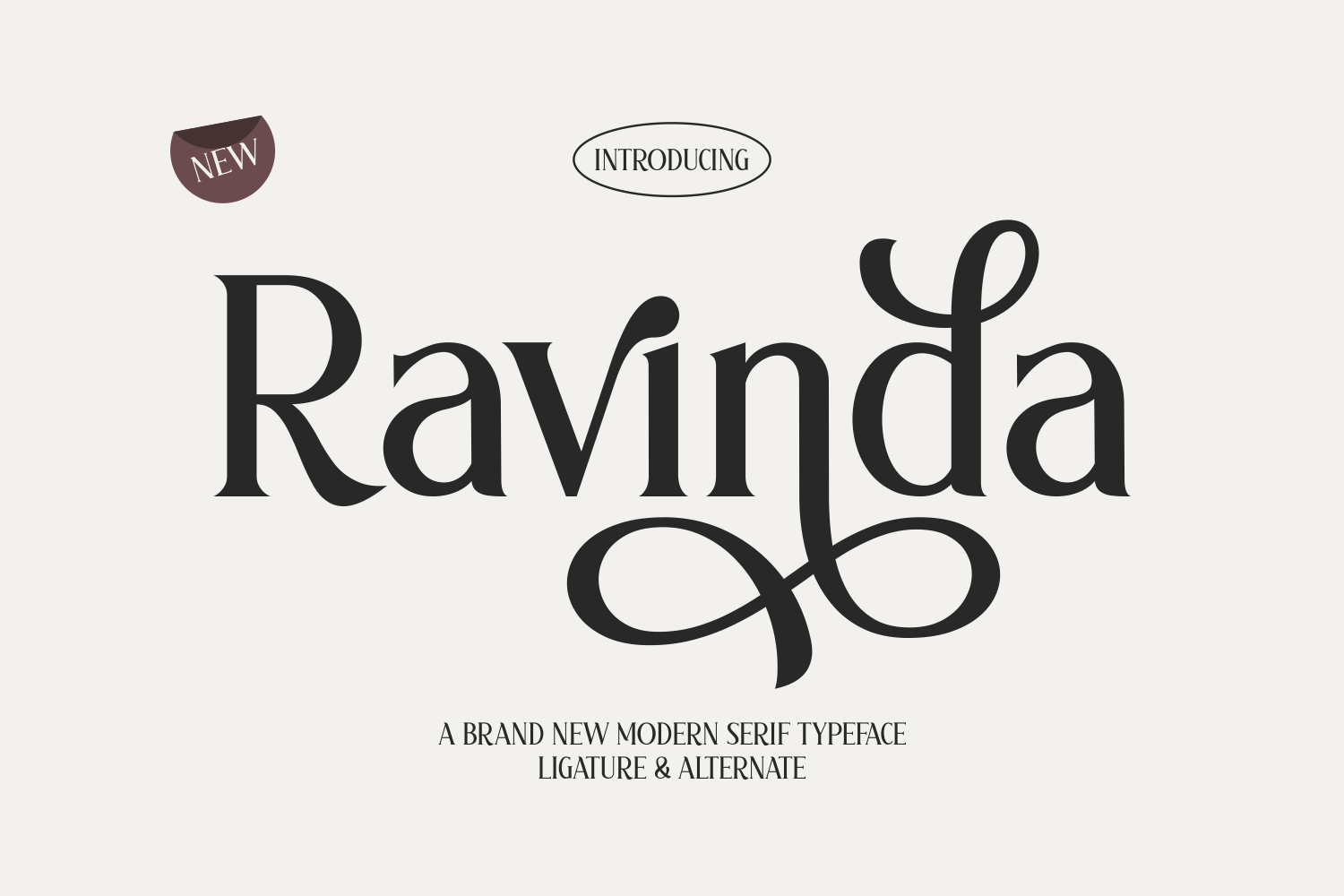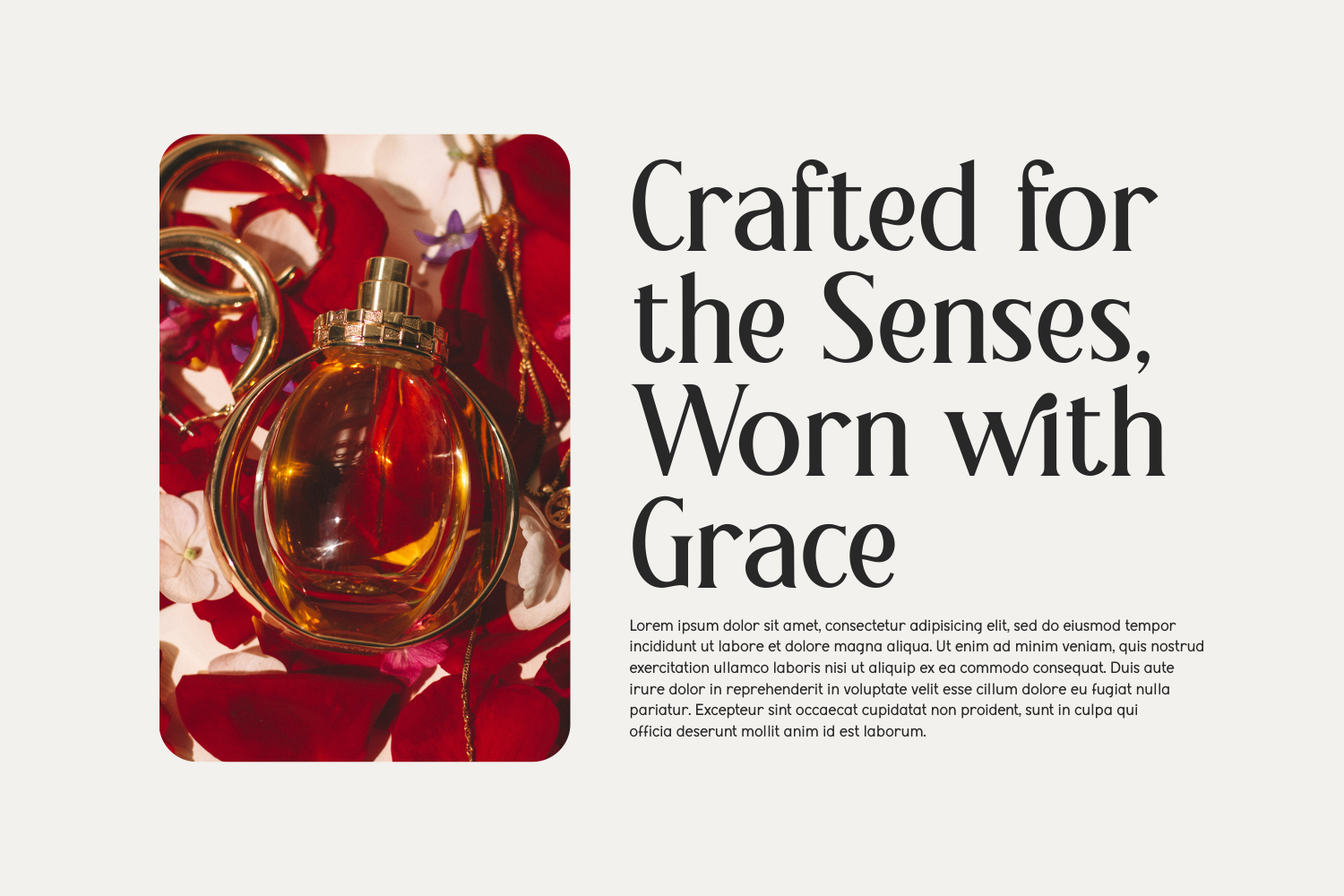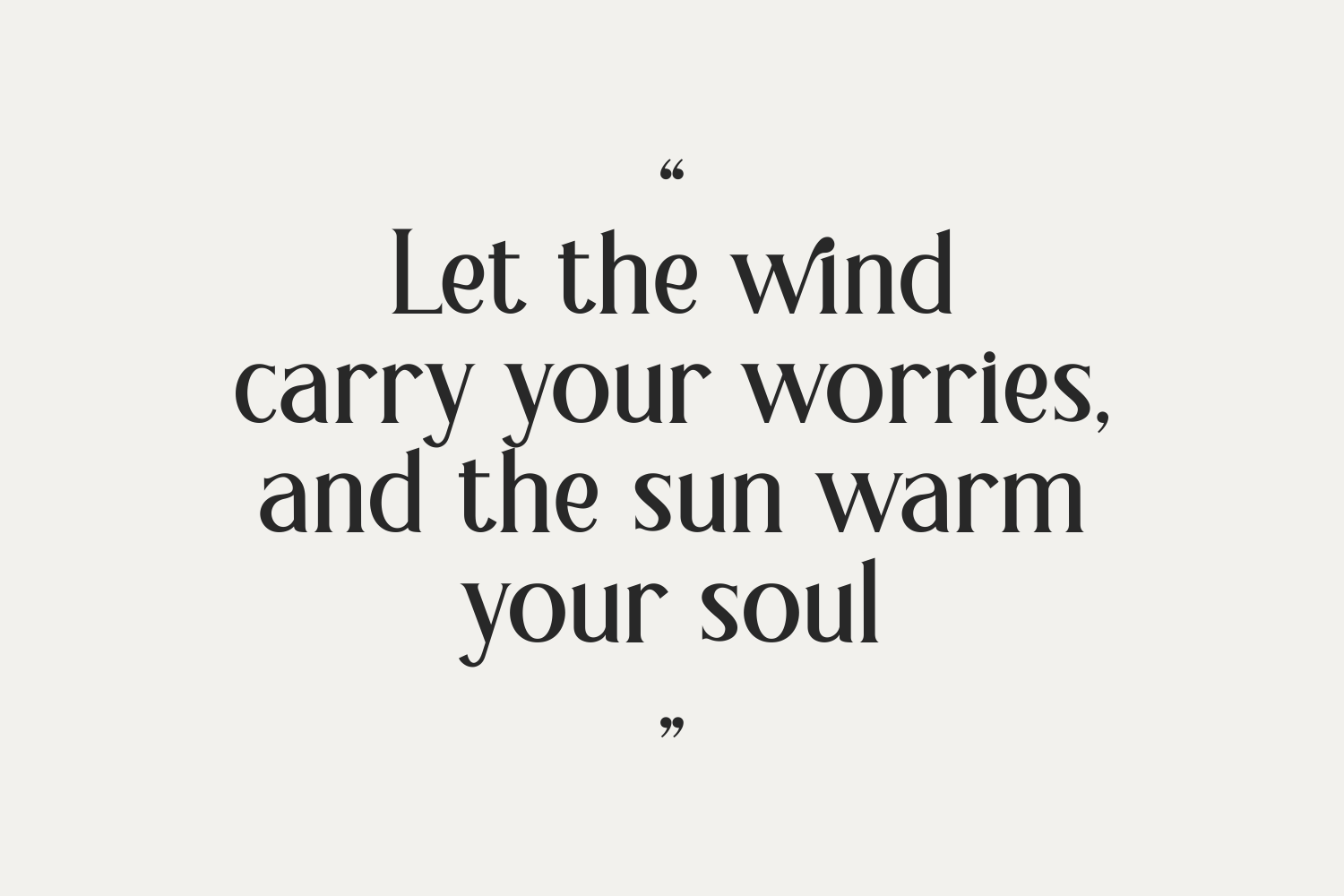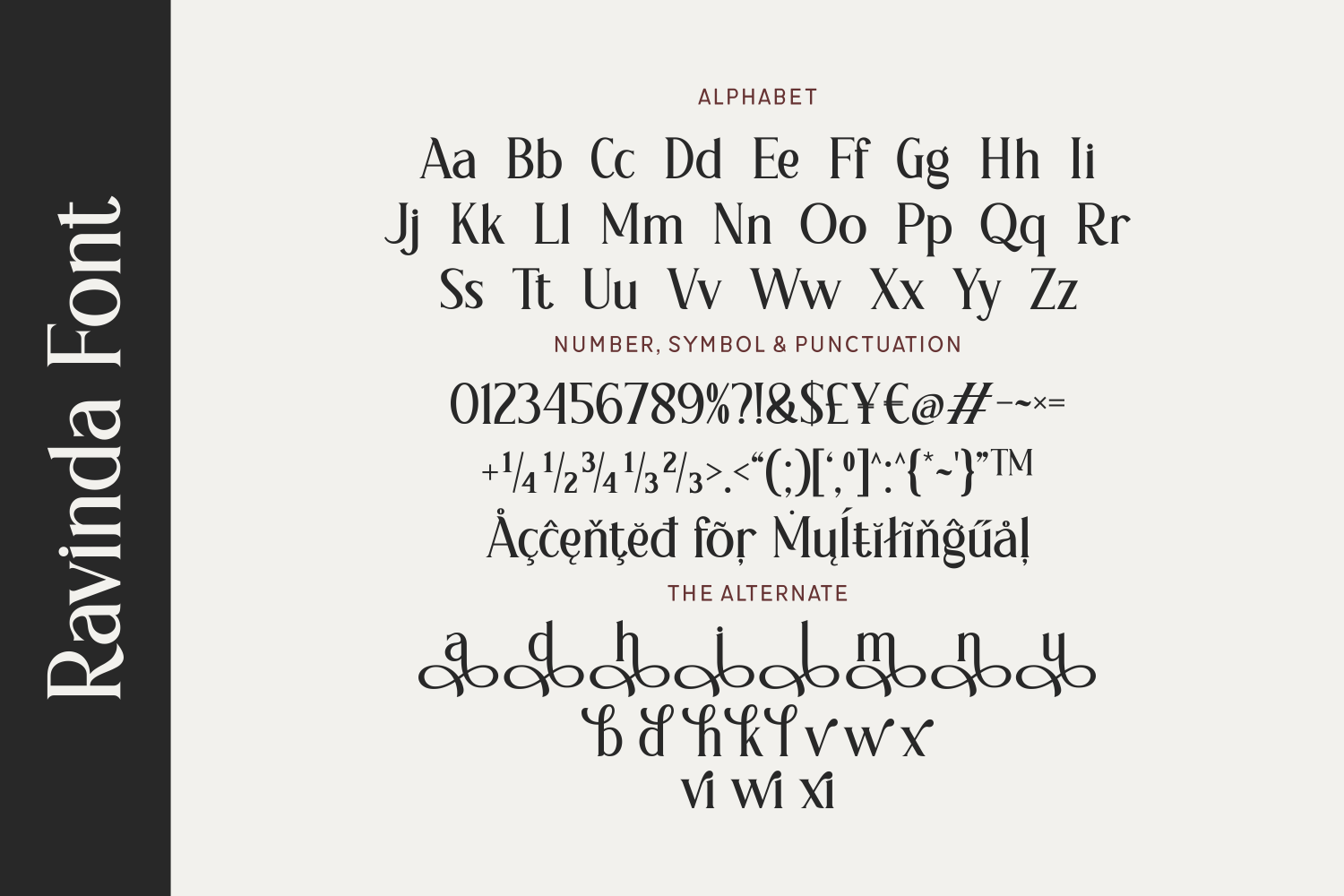
Ravinda is a sophisticated modern serif font that beautifully marries tradition with decorative detail. Its graceful ligatures and swash alternates bring movement and elegance to branding, editorial layouts, and invitations. Ravinda is a go-to choice when your project calls for classic beauty and expressive flair.